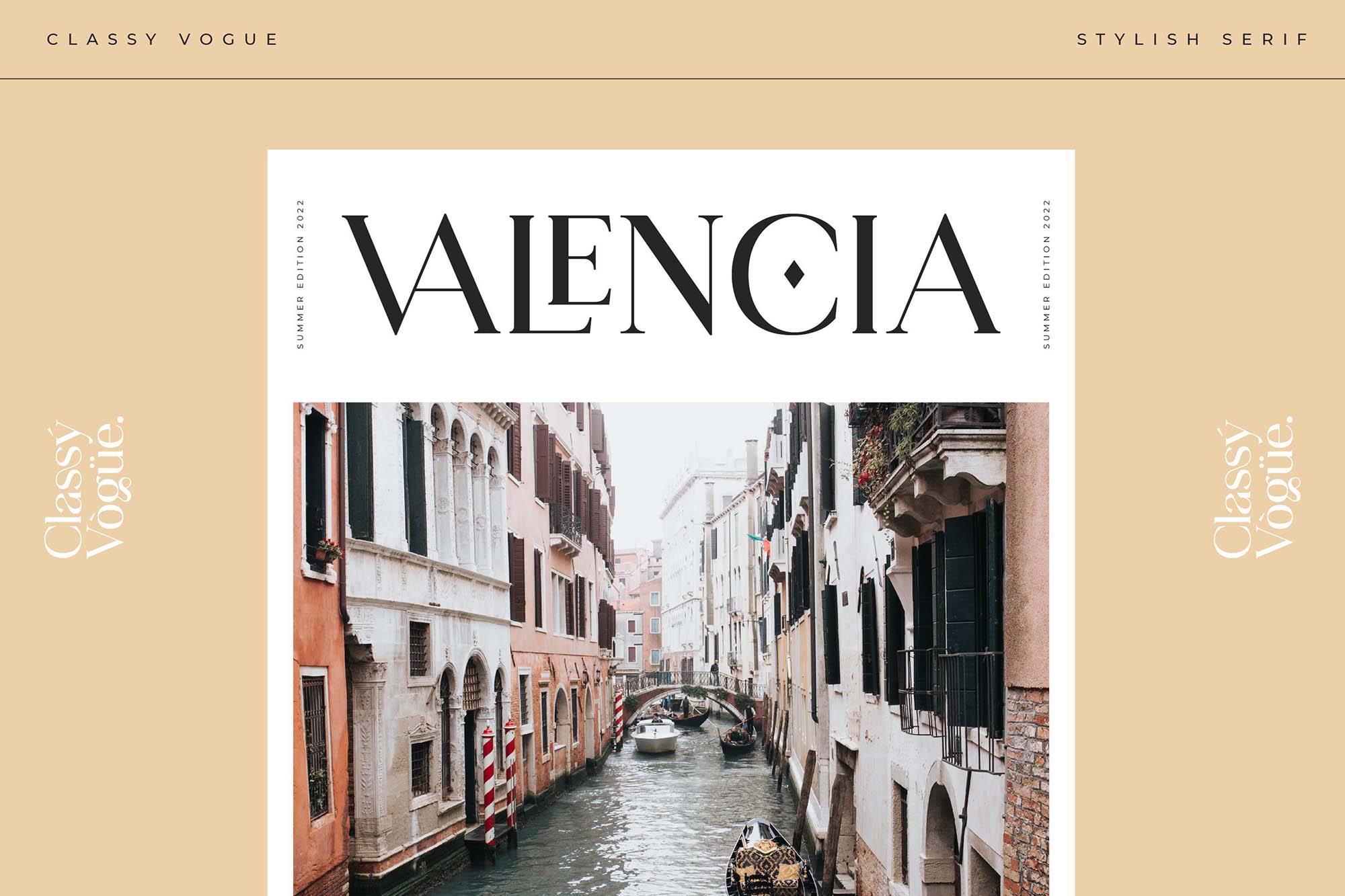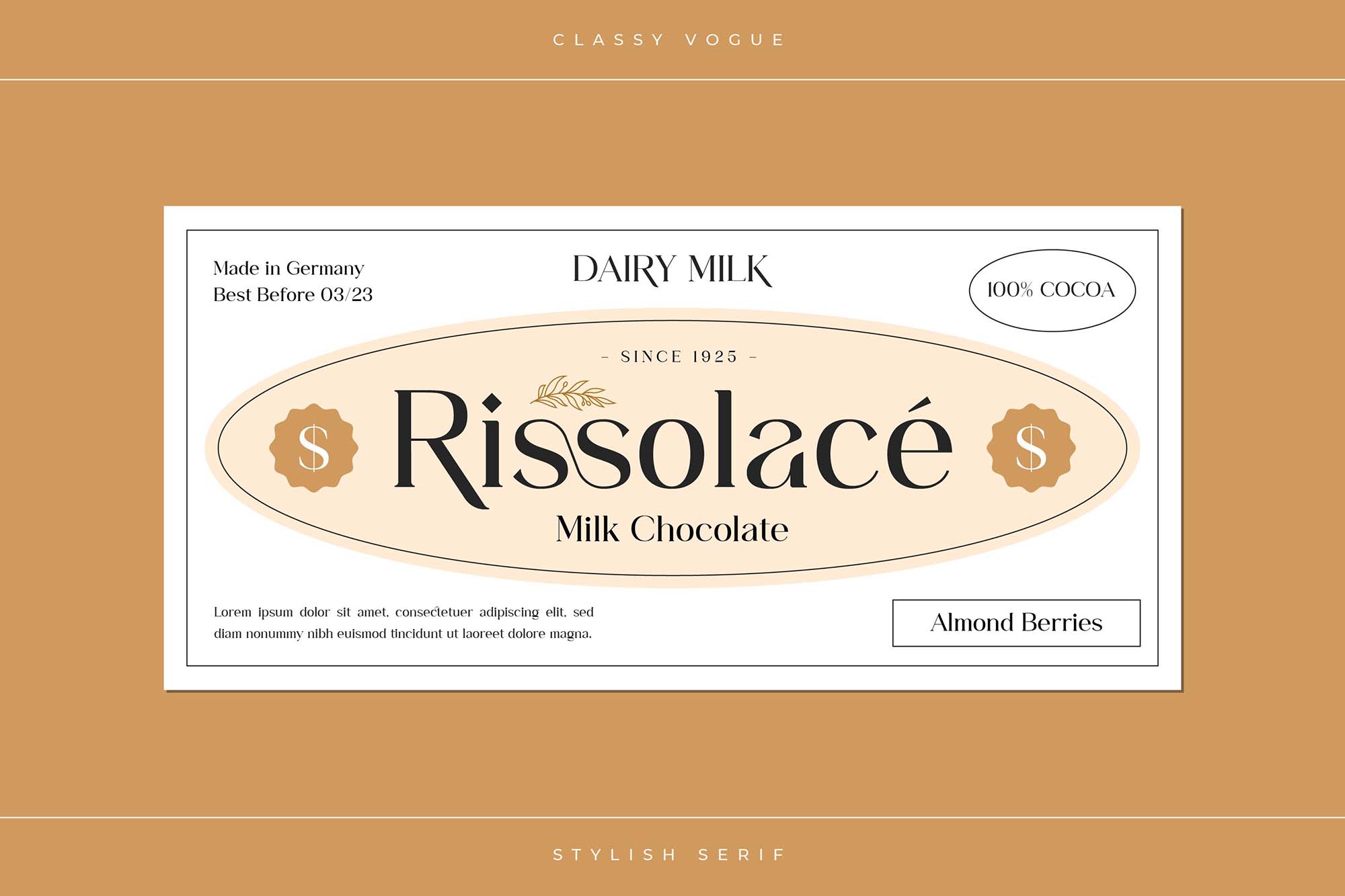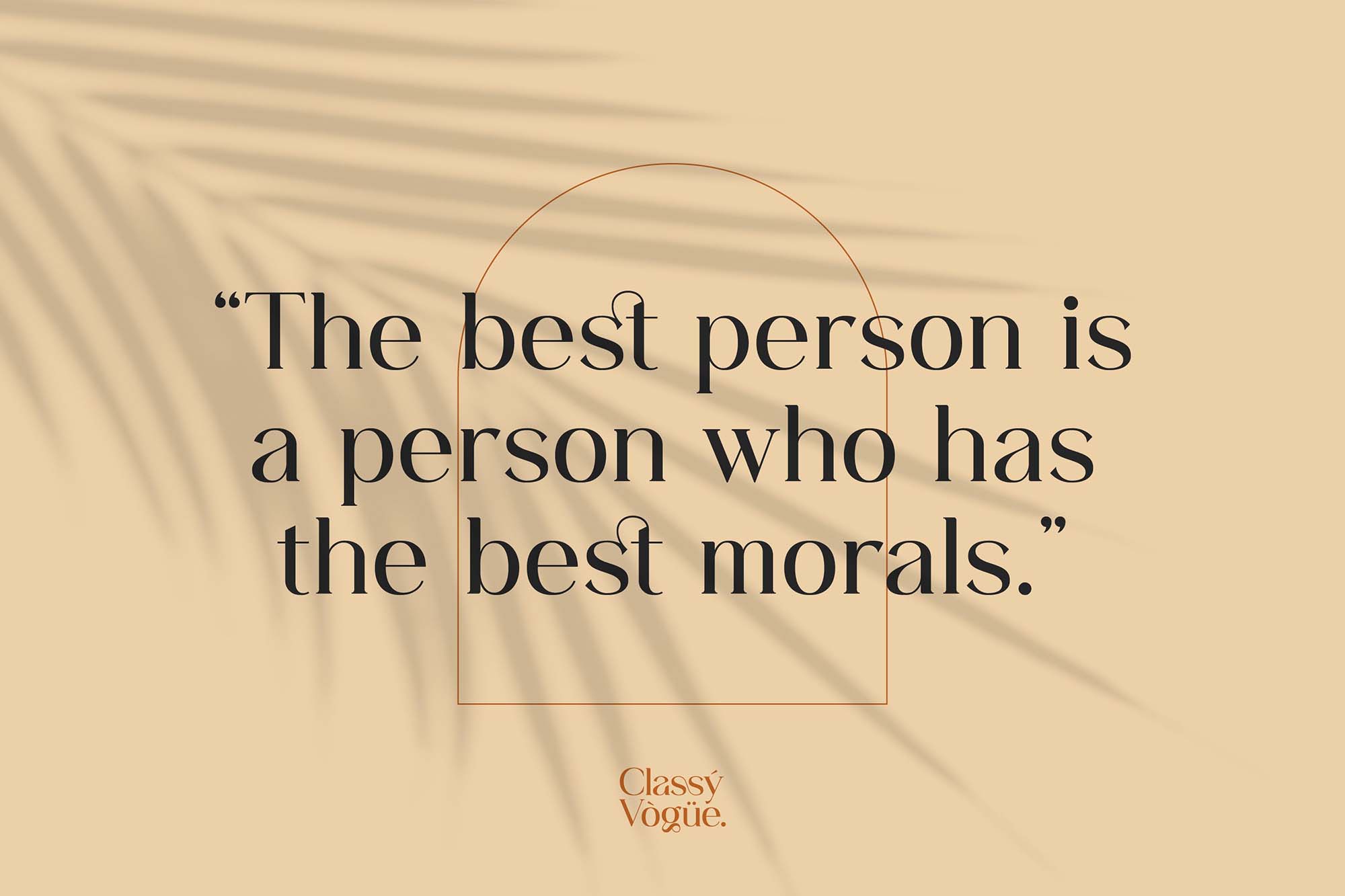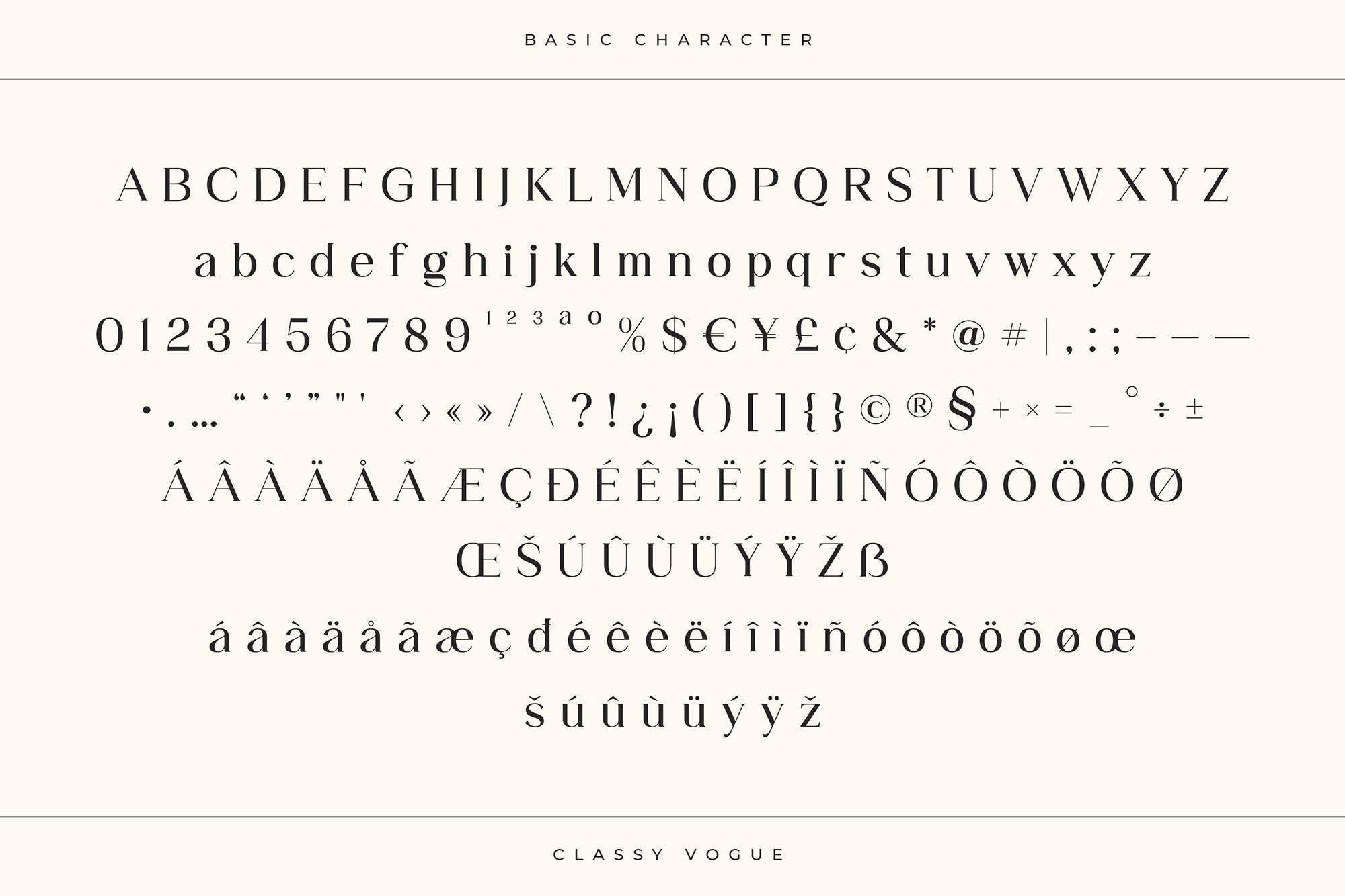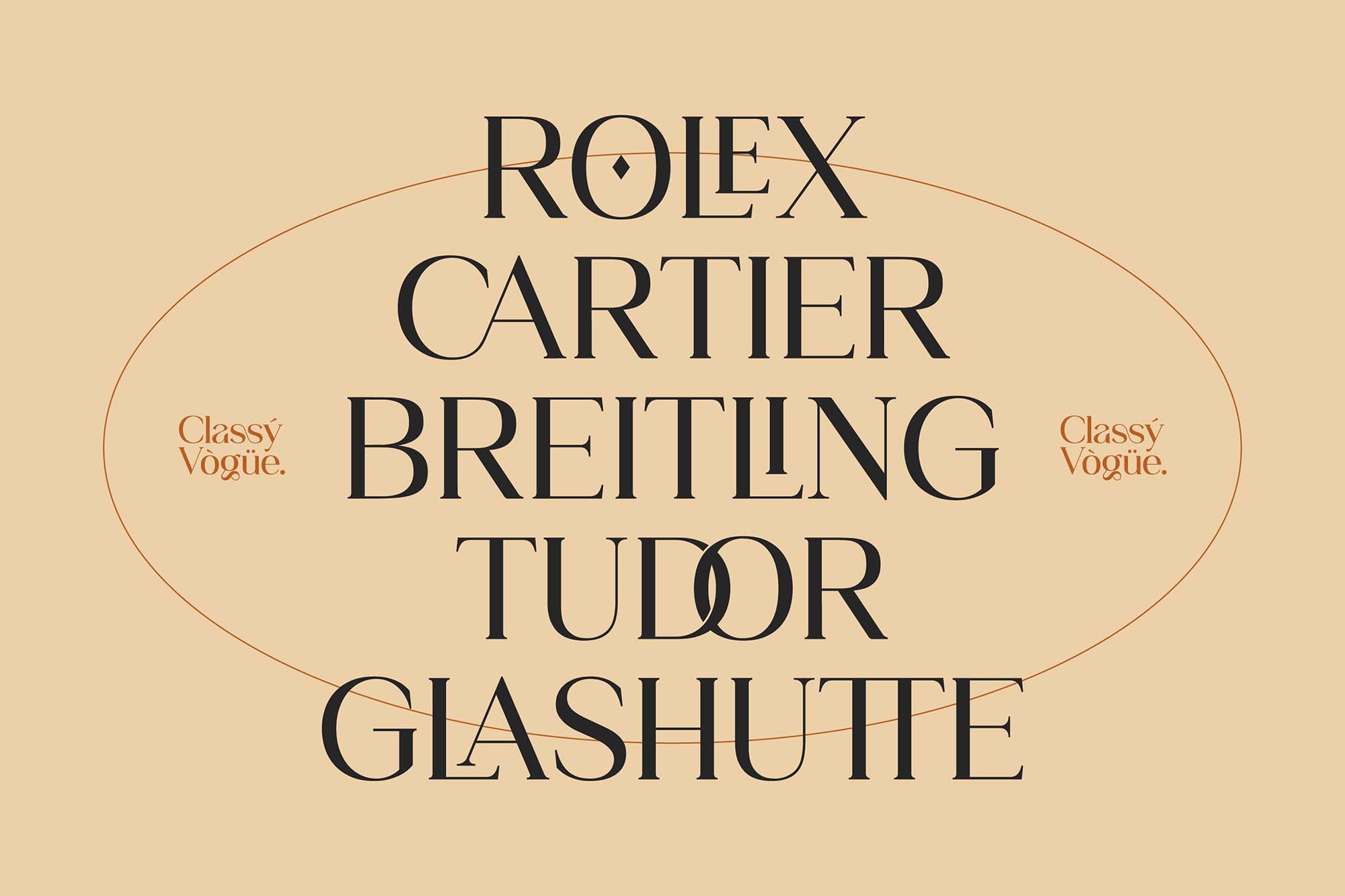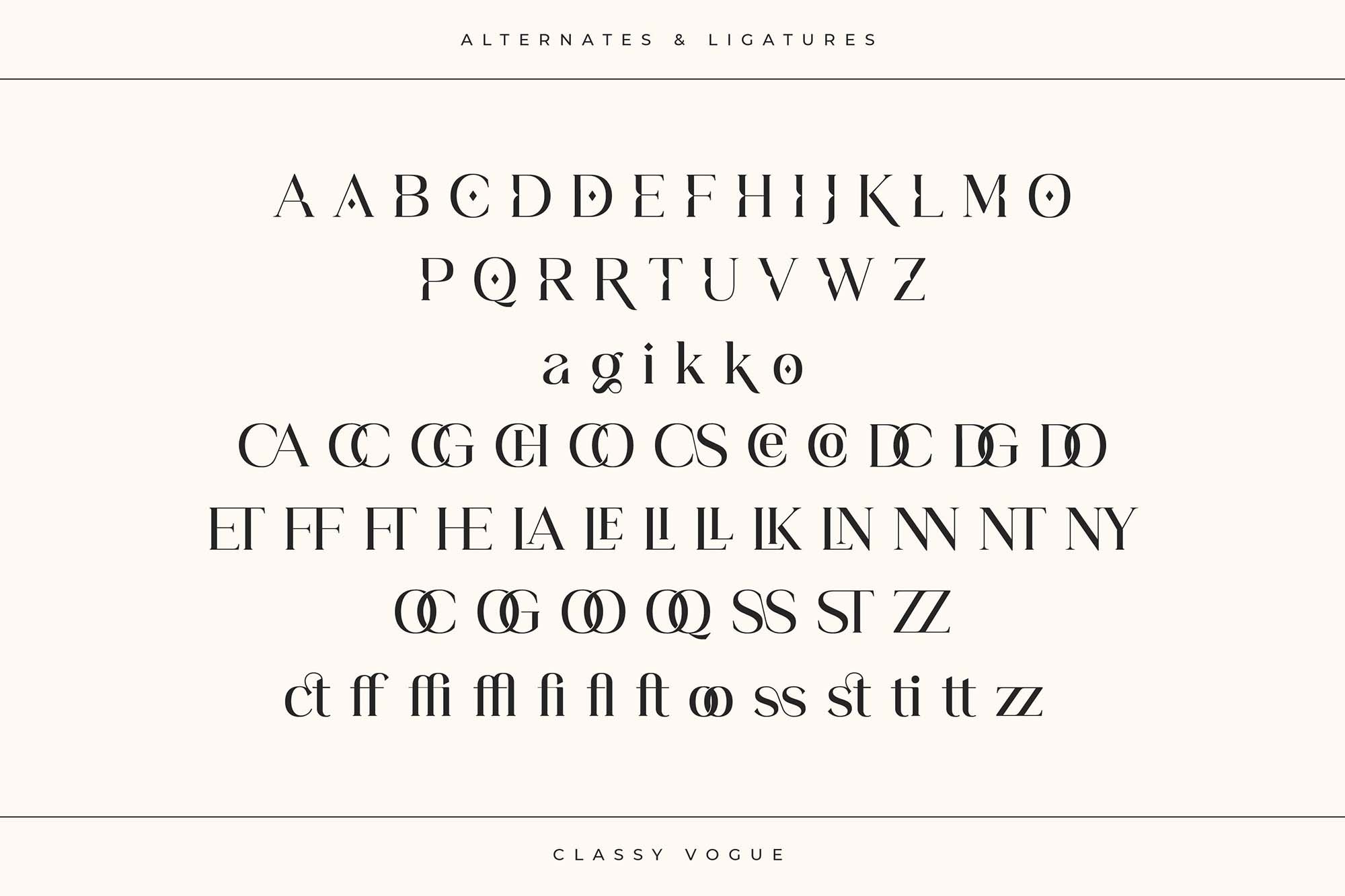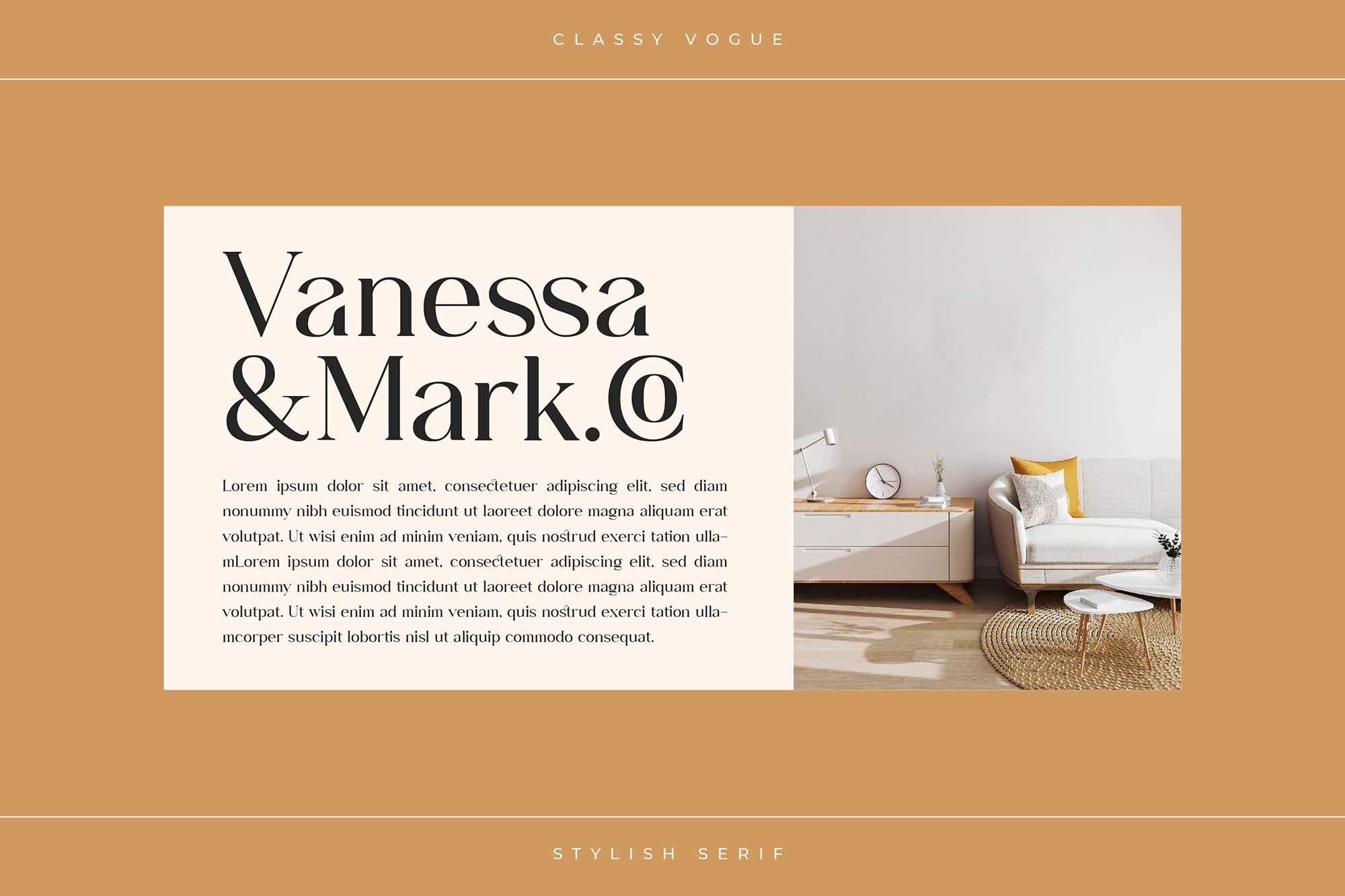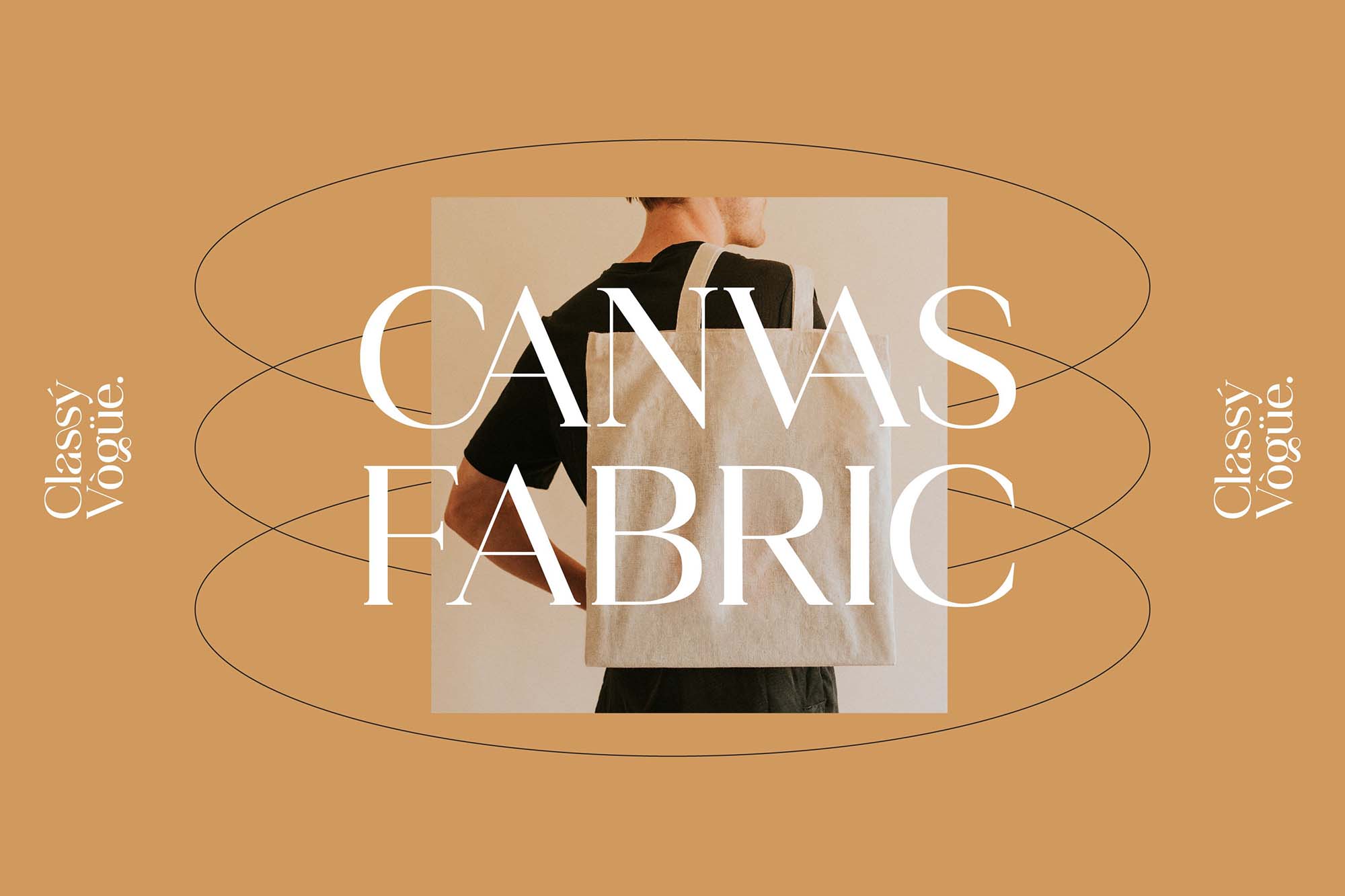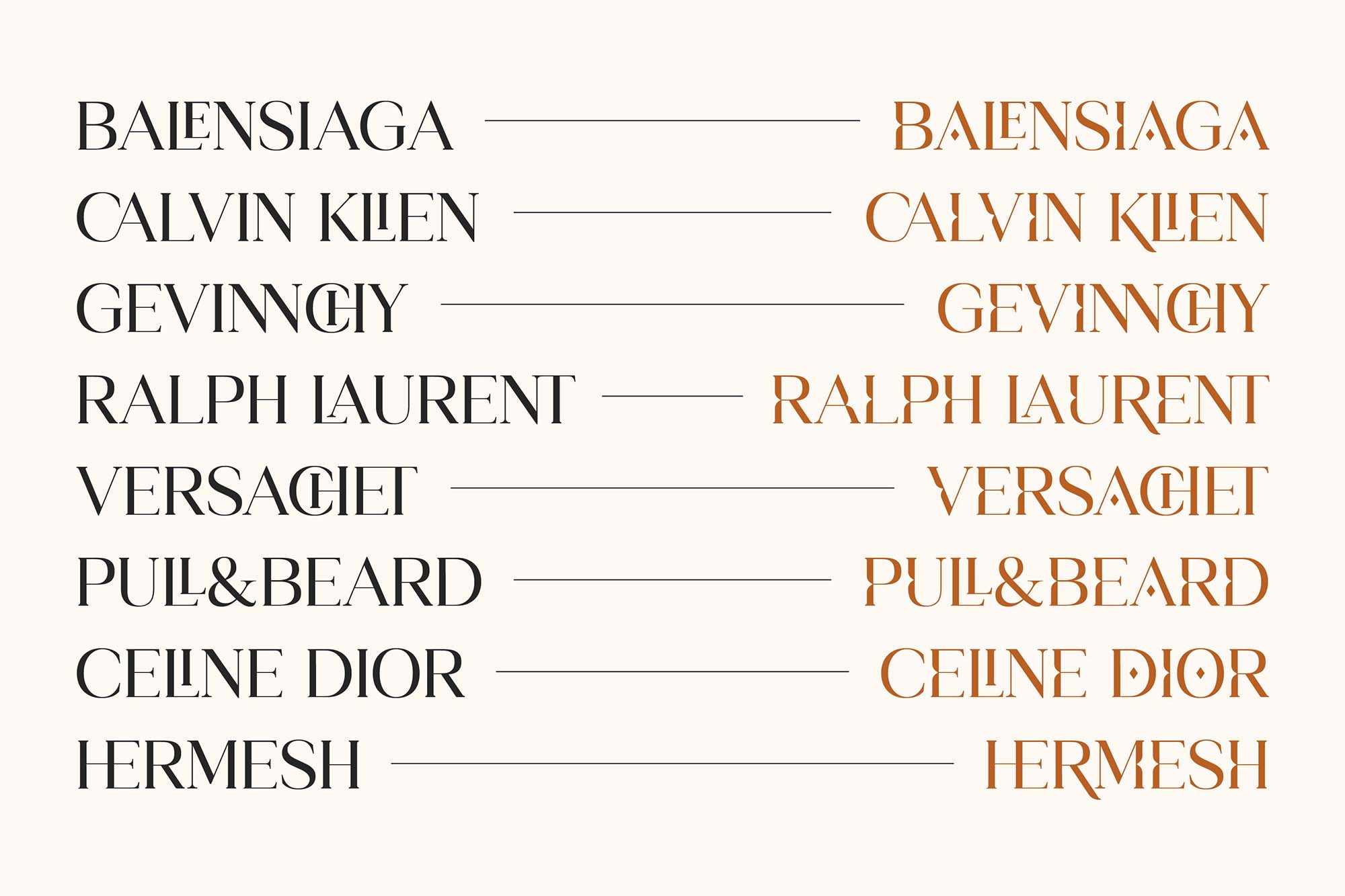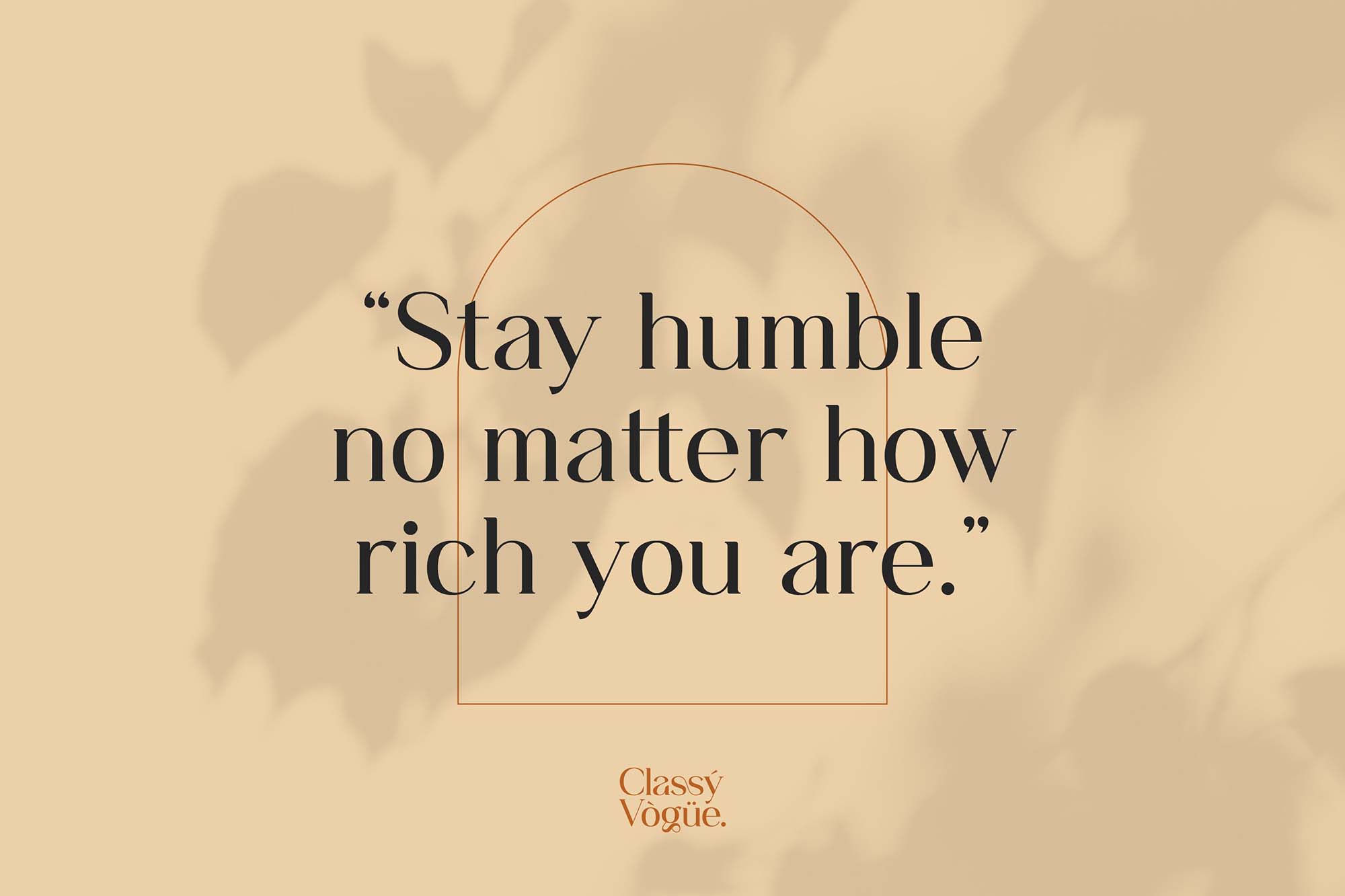
Classy Vogue Serif Font
Most artists opt for serif fonts when looking for legibility and clarity for their projects to give them the essence of tradition and professionalism. Designed by Variatype, Classy Vogue Serif font is a beautifully subtle creation that blends traditional influences into a contemporary aesthetic.
This font reflects elements of softness and expressiveness as its sharp edges contrast with natural curves. If you are looking to design logos, lifestyle magazines, fashion brands, or any other large set of projects, this typeface will make an instant and lasting impression on your brand.